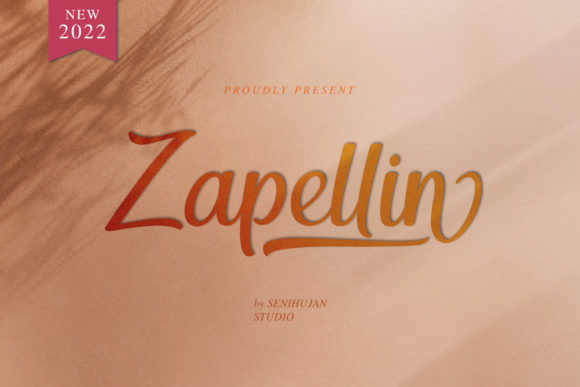
Zapellin Font
Zapellin is a chic, refined script font that emanates sophistication and elegance. Its stylish alternates and ligatures make this font the perfect match for any project. Zapellin is PUA encoded which means you can access all of the glyphs and swashes with ease!